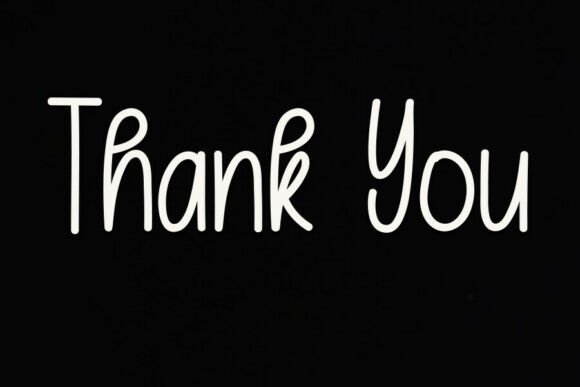
Introduction to Lemonande Font
Have you ever stared at a blank page, waiting for inspiration to strike, only to have it hit you like a ray of sunshine? That’s exactly what happened to me when I first laid eyes on the Lemonande Font. Its charming, handwritten style instantly captured my attention, and I knew I had to share it with the world.
As designers, we’re always on the lookout for that special something to elevate our creative projects and make them truly stand out. And that’s where the Lemonande Font comes in – a high-quality, versatile font that’s perfect for everything from greeting cards to headlines. With its natural feel and transparent background, it’s a valuable design resource that’s sure to add a touch of warmth to any project.
Key Features of Lemonande Font
- High-quality design: The Lemonande Font is designed with precision and care, ensuring a professional and polished look for any creative project.
- Unique, hand-drawn style: The Lemonande Font features a distinctive, hand-drawn design that adds a touch of personality to any creative project.
- Perfect for digital and print design: The Lemonande Font is ideal for use in digital design, such as website headers and social media graphics, as well as print design, including business cards and brochures.
Honest Review: Lemonande Font
I recently had the chance to work with the Lemonande Font for a creative project and I have to say, it was a great experience. The font is free to download, which is always a plus for designers on a budget.
One of the things that stood out to me was the high quality of the font. It’s clear that the designers put a lot of thought into creating a unique and visually appealing font. The transparent background made it easy to work with and the font was highly customizable.
Here are some of the things that worked well: ✨
- Unique and modern design
- High quality and transparent background
- Customizable and easy to work with
While the Lemonande Font is a great resource, there are a few limitations: ⚠️
- Some users may find the font to be a bit too bold or overpowering
- The font may not be suitable for all types of projects or designs
Overall, I was impressed with the Lemonande Font and would recommend it to designers looking for a high-quality and unique font for their creative project. It’s definitely worth checking out, especially if you’re on a budget and looking for a free download.
The Lemonande Font is perfect for use in a variety of creative projects, including:
- Business presentations
For the best results, use the font on a transparent background to give your designs a clean and modern look. You can also experiment with different font sizes and styles to create a unique look.